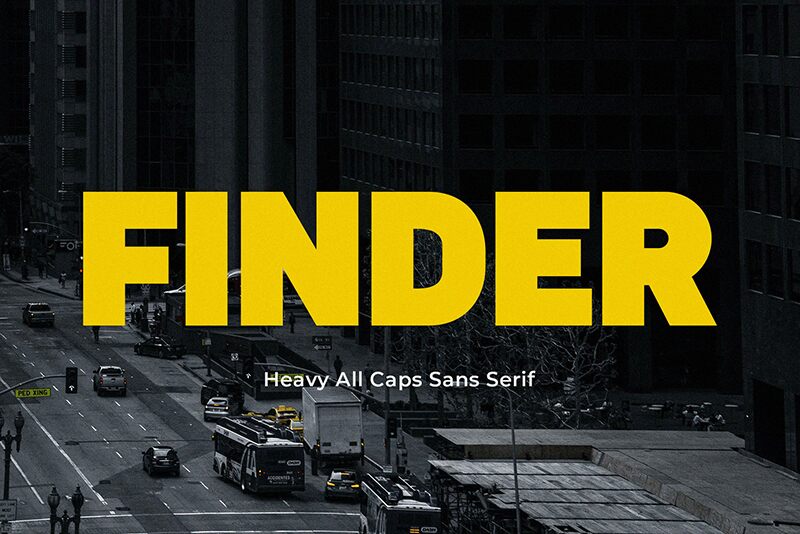
Finder
FINDER is a bold, assertive sans serif font that commands attention. Designed by BrandSemut, this font exudes a powerful, no-nonsense aesthetic, with its thick, unapologetic strokes and minimal flourishes. The uppercase letters have a striking, angular quality, conveying a sense of strength and confidence.
This font would excel in headlines, title treatments, and branding applications where a bold, impactful presence is desired. Its straightforward style and lack of unnecessary embellishments make it well-suited for a range of uses, from sleek editorial designs to rugged industrial aesthetics.
FINDER's uncompromising character and versatility make it a valuable addition to any designer's toolkit, ready to lend an air of authority and visual impact to a wide array of projects.